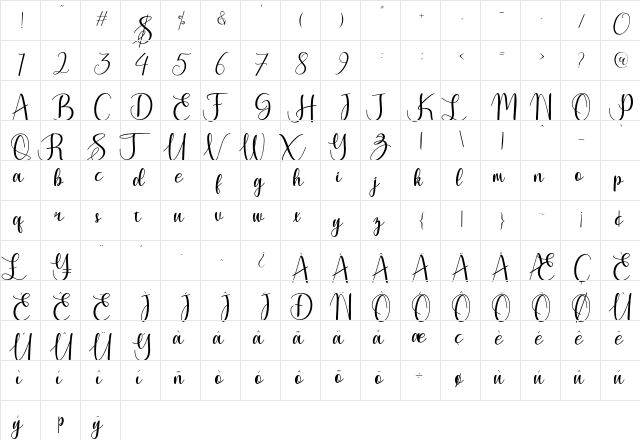
zubayda Regular
| Foundry | mightype |
| Designer | munawir |
Design Context for zubayda Typeface
zubayda is a composed and adaptable typeface that performs quietly and consistently across a wide range of design contexts.